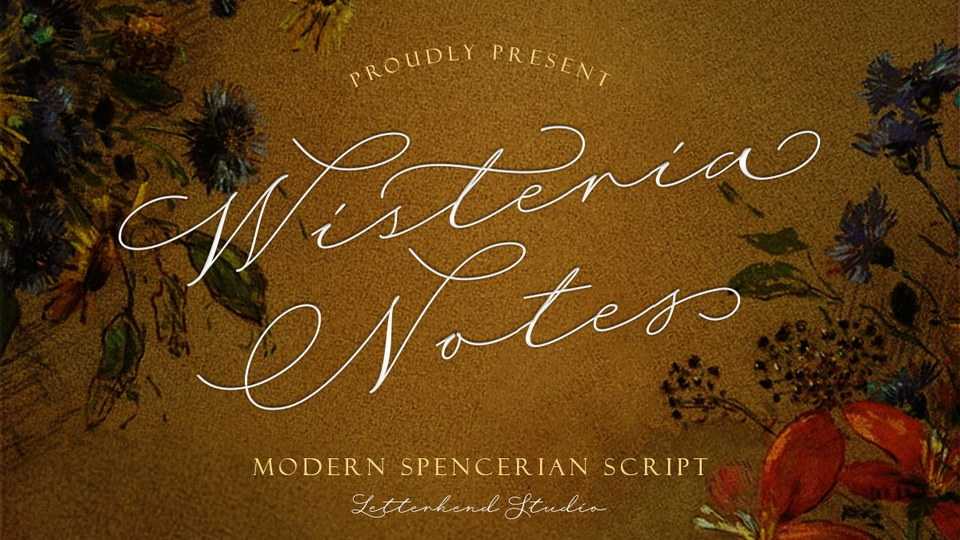
Download Wisteria Notes font, a beautiful script typeface based on manual handwriting. Wisteria Notes is inspired by old-fashioned calligraphy script, so classy and classic.